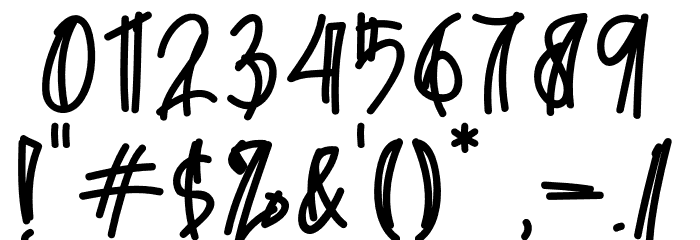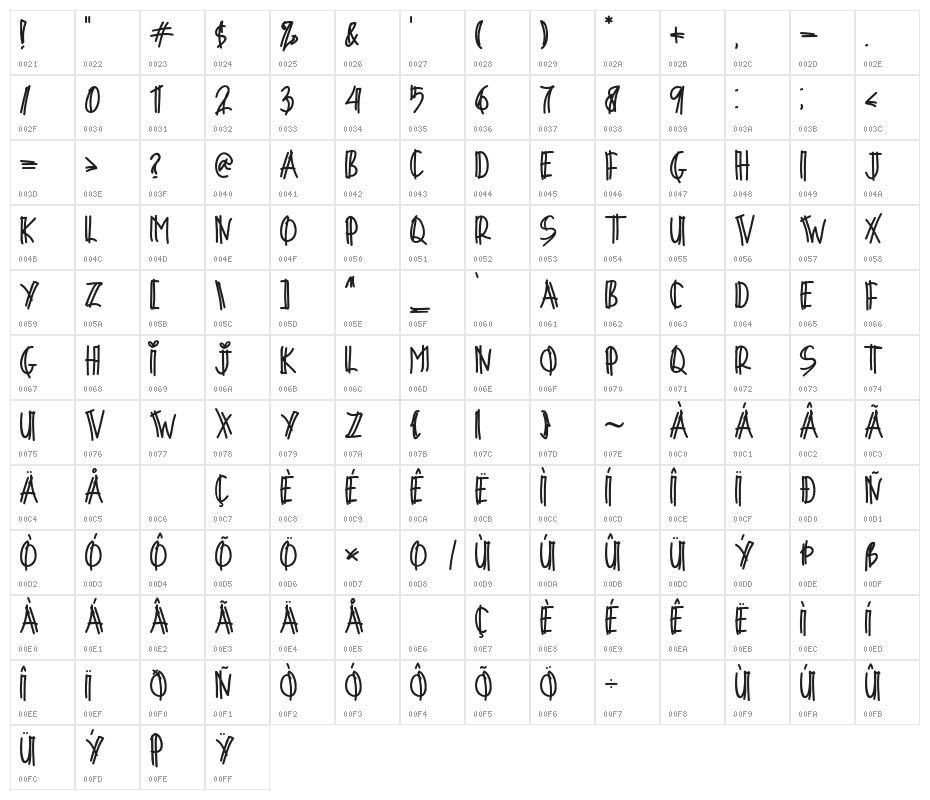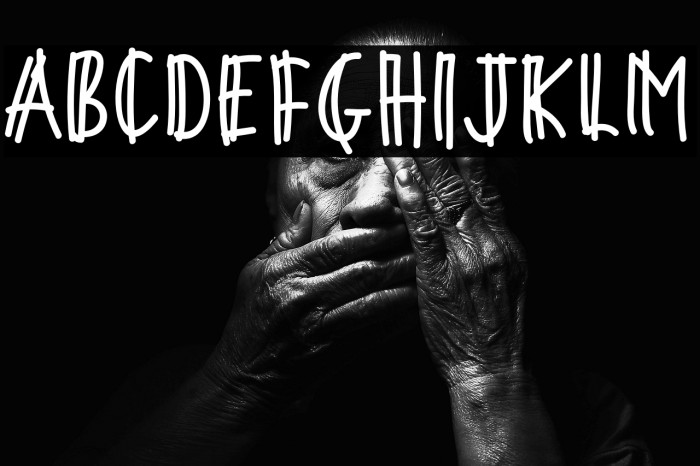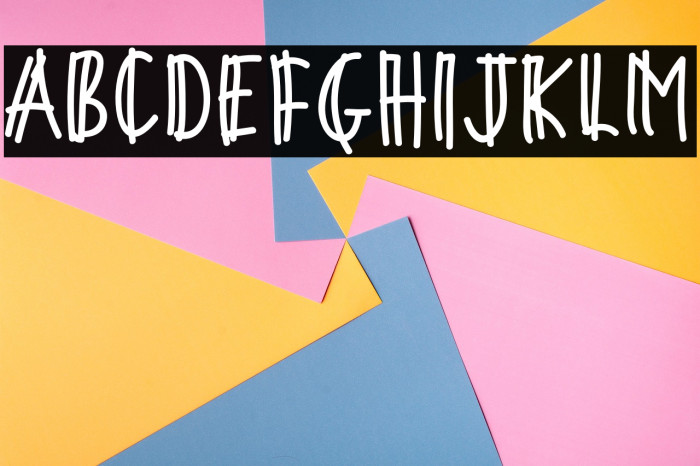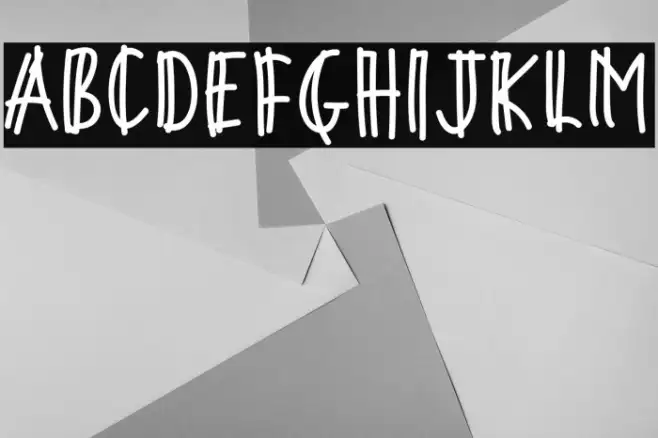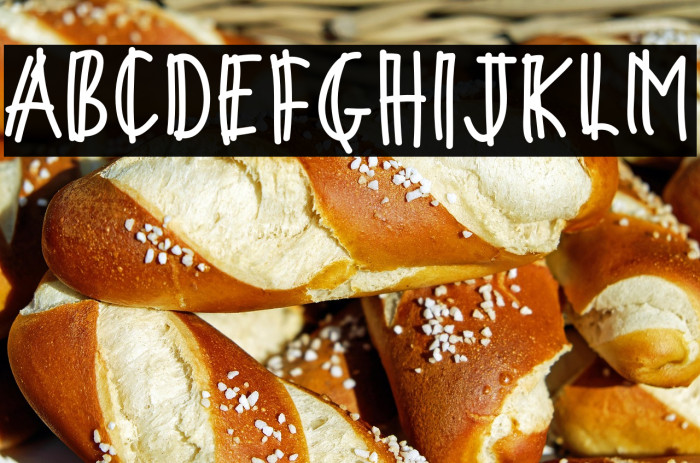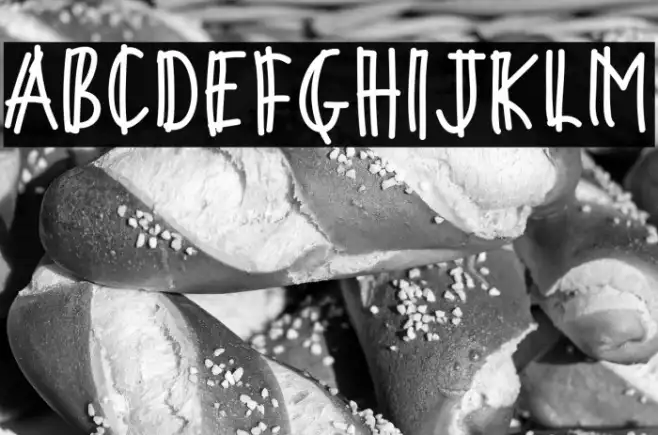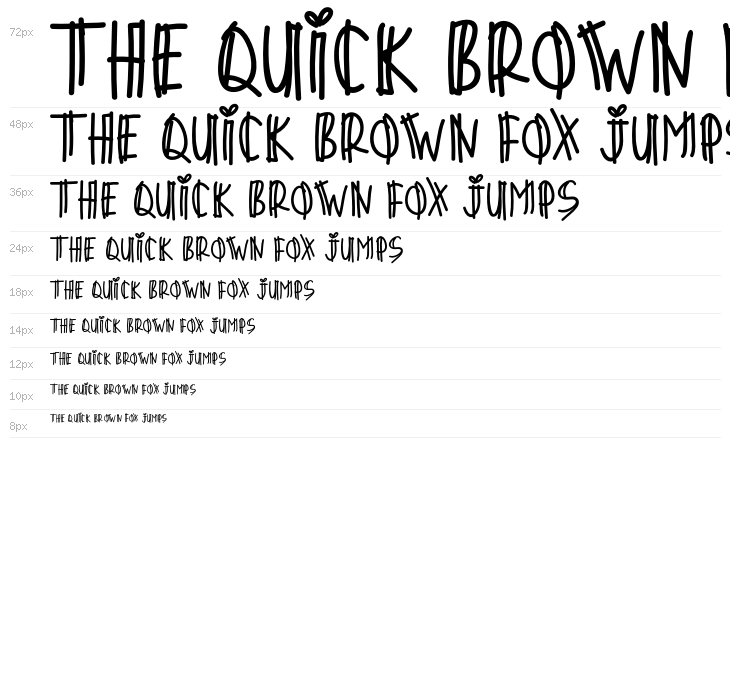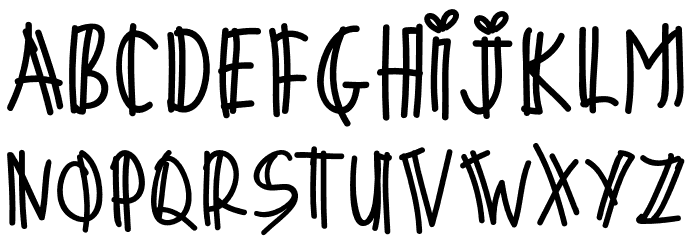
LoveBeti Font
LoveBeti Description
This font features a playful and whimsical handwritten style, characterized by its irregular strokes and casual appearance. The letters are bold and slightly tilted, giving them a dynamic and energetic feel. The uppercase and lowercase letters maintain a consistent style, with some letters having unique embellishments, such as the heart-shaped dots on the 'i' and 'j'. The numbers and special characters follow the same playful theme, making the font suitable for creative and informal projects. The overall look is friendly and approachable, ideal for capturing attention in a fun and engaging way.
| Proposed Projects | Ideal for greeting cards, children's books, playful branding, and social media graphics. |